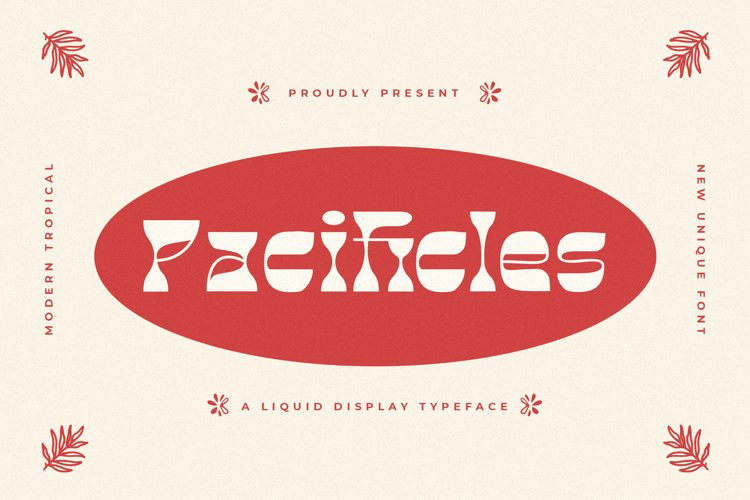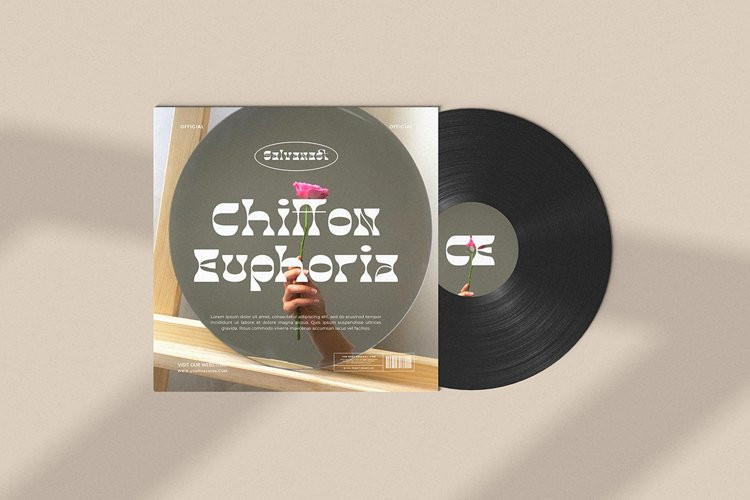
Pacificles Font
Pacificles FontPacificles is a unique liquid display font.
Its casual charm makes it appear wonderful down-to-earth, readable, and versatile.
This font will look outstanding in any context, whether it’s being used on busy backgrounds or as a standalone headline especially on aesthetic design!